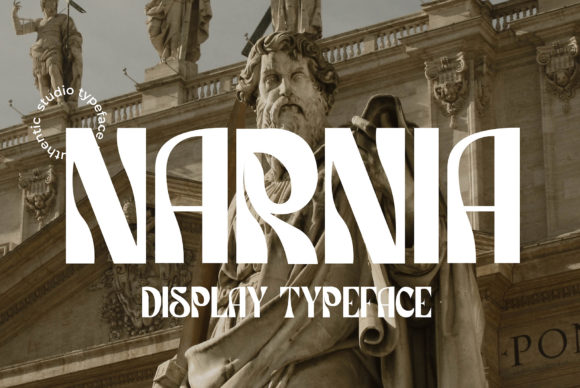
Journey into the captivating world of Narnia Font, a psychedelic-inspired display font that radiates retro charm and playful energy. Crafted by the renowned Authentic Studio, Narnia is a visual masterpiece that adds a touch of nostalgia and boldness to your designs.
Immerse yourself in the mesmerizing curves and striking lines of Narnia, a font that evokes a sense of wonder and creativity. Its unique character adds a touch of whimsy and charm to your projects, whether creating modern logos, eye-catching posters, or playful social media graphics.
With Narnia Font, you'll unleash your imagination and create designs that stand out from the crowd. Its retro aesthetic adds a touch of vintage flair, while its playful personality injects a dose of fun and excitement into your work.
Unlock the endless possibilities of Narnia Font and elevate your designs to new heights. Let your creativity soar as you explore the limitless potential of this captivating display font. Embrace the Narnia experience and transform your designs into works of art.